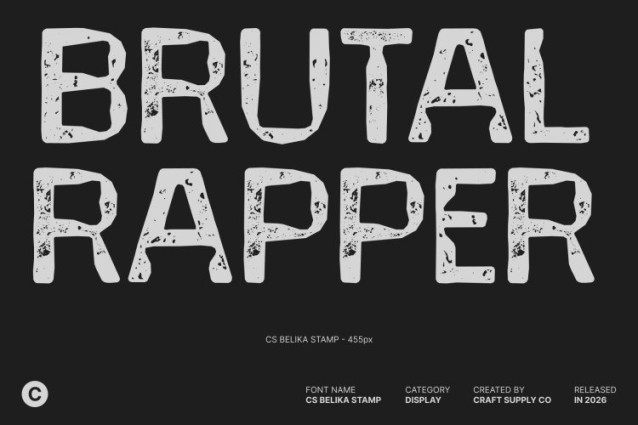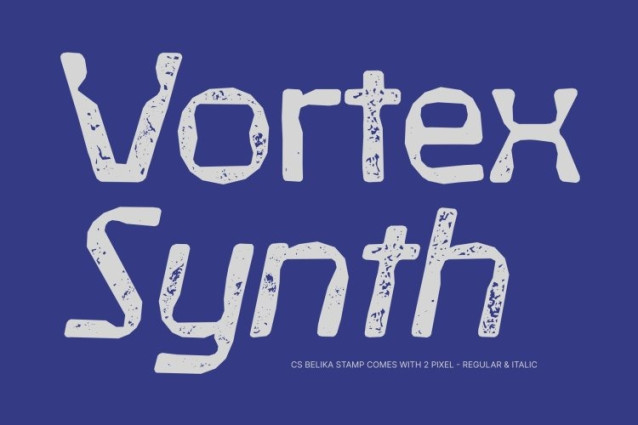
CS Belika Stamp Font
CS Belika Stamp Font This is a modern display sans-serif font built on sharp, geometric foundations and futuristic techno aesthetics. Clean lines, precise angles, and structured letterforms give it a distinctly digital feel, while the stamped texture introduces a subtle layer of grit adding depth, character, and a tactile, industrial edge to its sleek design.
Techno-Inspired and Forward-Thinking
Rooted in technological and sci-fi visual language, delivers a bold, forward-looking impression. Its crisp geometry and mechanical rhythm evoke innovation, speed, and precision, making it ideal for designs that aim to feel advanced, intelligent, and cutting-edge. The stamp effect softens the perfection just enough to add visual interest without losing its high-tech appeal.
Perfect for Tech, Digital, and Futuristic Projects
This font excels in tech logos, UI headlines, gaming visuals, sci-fi posters, and digital promotions. This font brings clarity and impact to futuristic themes, ensuring strong legibility while projecting a modern, professional tone suited to digital environments and technology-driven branding.
Versatile Modern Font with Industrial Character
Whether used in branding, motion graphics, editorial titles, or digital interfaces, adapts effortlessly across creative applications. Its fusion of sharp techno structure and stamped texture makes it a powerful choice for designers seeking a modern font that balances precision, innovation, and bold visual identity.